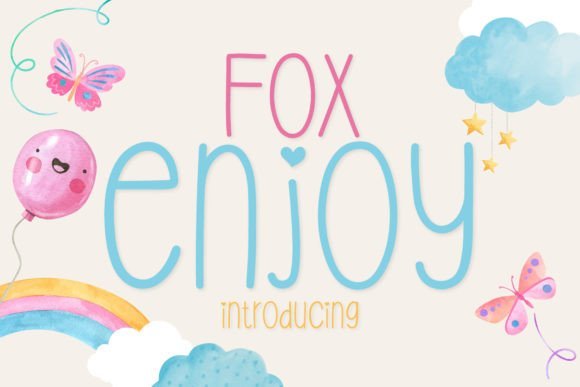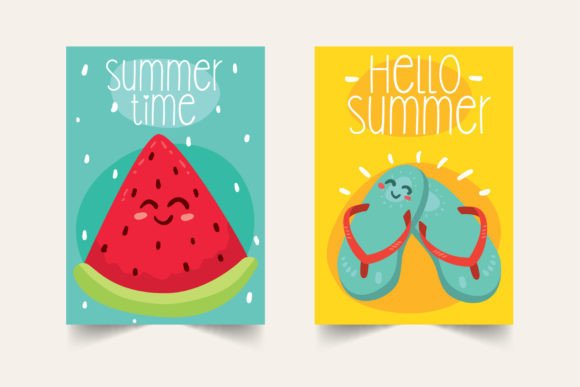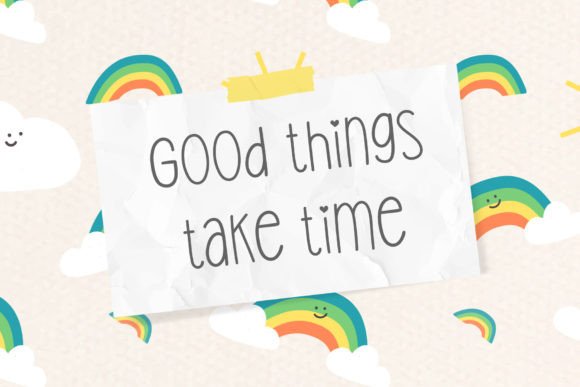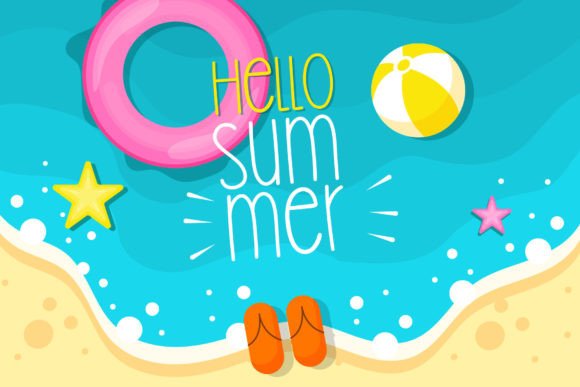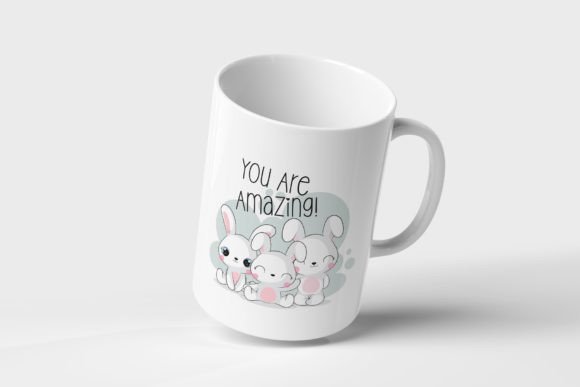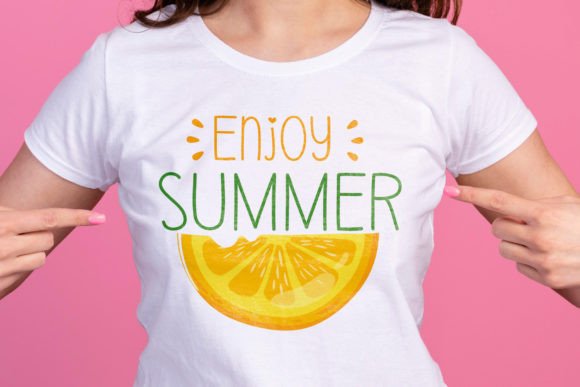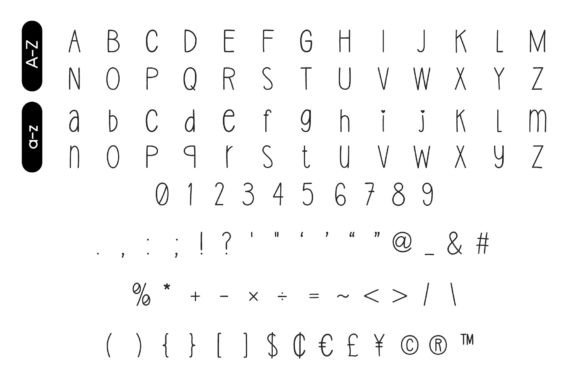
Have you ever stumbled upon a font that just makes you smile? For me, that moment happened when I discovered the Fox Enjoy Font. I was working on a project that needed a playful and whimsical touch, and this font was the perfect solution. With its charming combination of cute, fun, and cool elements, it added a level of excitement to my design.
The Fox Enjoy Font is a unique and versatile handwritten font that’s perfect for various creative projects, from quotes and headings to blogs, logos, and invitations. Its value lies in its ability to add a touch of personality and whimsy to any design, making it a valuable tool for designers looking to create memorable and engaging content.
Fox Enjoy Font Key Features
- Font Family: Fox Enjoy Font is a sans-serif font family designed for digital use.
- Character Set: The font family includes a wide range of characters, including Latin, Cyrillic, and Greek alphabets, as well as punctuation and symbols.
- Font Size and Resolution: Optimized for use at font sizes ranging from 12px to 72px, with a resolution of 300 DPI for high-quality display on screens and printed materials.
- Unique Characteristics: Fox Enjoy Font features a modern and clean design with a friendly feel, making it suitable for use in various digital applications, including web design, mobile apps, and digital signage.
Designer Review: Fox Enjoy Font
Overall, the Fox Enjoy Font has some nice qualities, but also a few areas where it falls short. Let’s break it down.
- The font’s playful and energetic vibe is perfect for projects that require a touch of whimsy. It’s great for kids’ content, food blogs, or any other brand that wants to come across as friendly and approachable.
- The Fox Enjoy Font has a nice range of weights, from light to bold, which makes it versatile and easy to use in different contexts.
- The font’s design is well-suited for headings and titles, as it’s clear and easy to read even at larger sizes.
- The font’s lowercase letters can be a bit messy and difficult to read, especially in body text. This might be a problem for projects where legibility is crucial.
- The font’s design can feel a bit too playful and childish for some audiences. If you’re looking for a more mature or professional look, you might want to consider another option.
- The font’s support for non-English languages is limited, which might be a problem for global projects or brands that need to communicate with customers in multiple languages.
In conclusion, the Fox Enjoy Font is a fun and energetic option that’s perfect for certain types of projects. However, it’s not without its limitations, and you’ll need to carefully consider whether it’s the right fit for your needs.
Practical Application Guide for Fox Enjoy Font
Tips for Getting the Most Out of Fox Enjoy Font
Use Fox Enjoy Font for headings and titles to add a touch of whimsy and playfulness to your designs.
Combine Fox Enjoy Font with other fonts to create a unique and eye-catching typography style.
Experiment with different font sizes, colors, and styles to find the perfect balance for your design.
Use Fox Enjoy Font for:
• Food and beverage branding
• Children’s products and services
Alternatives to Fox Enjoy Font
Playfair Display is a high-end serif font that adds a touch of elegance to any design. It’s perfect for use in luxury branding, high-end advertising, and wedding invitations. Playfair Display has a more classic feel compared to Fox Enjoy Font, which is more modern and playful. It’s ideal for designers who want to convey sophistication and refinement.
Great Vibes is a modern script font that’s perfect for creating a friendly and approachable atmosphere. It’s great for use in social media, blog posts, and advertising campaigns. Compared to Fox Enjoy Font, Great Vibes is more casual and relaxed, making it ideal for designers who want to convey a sense of friendliness and approachability.